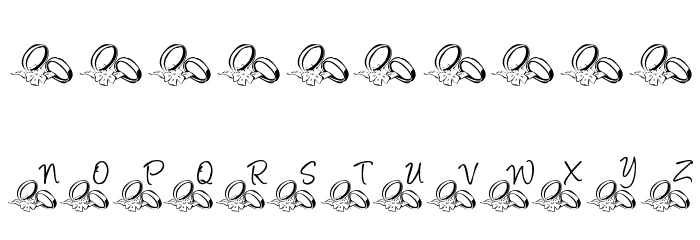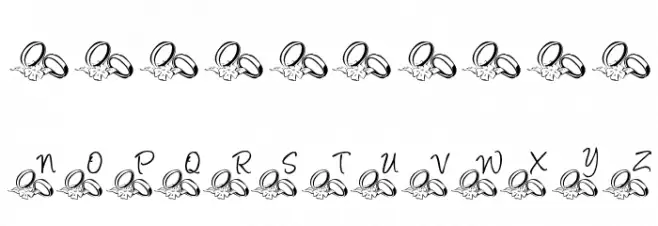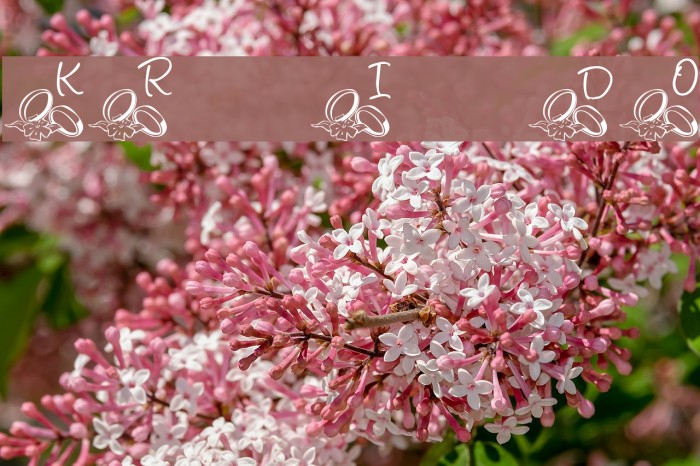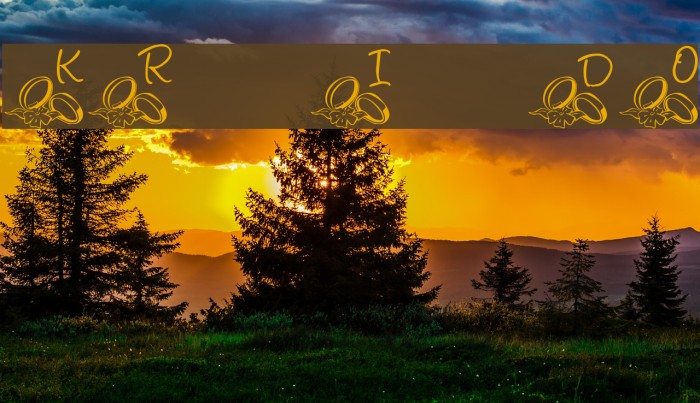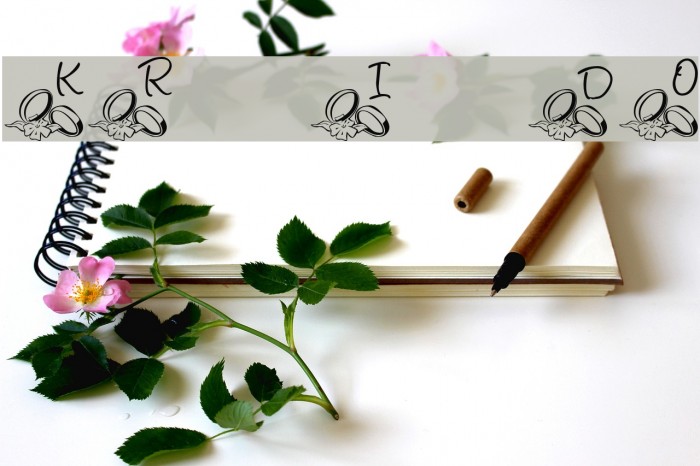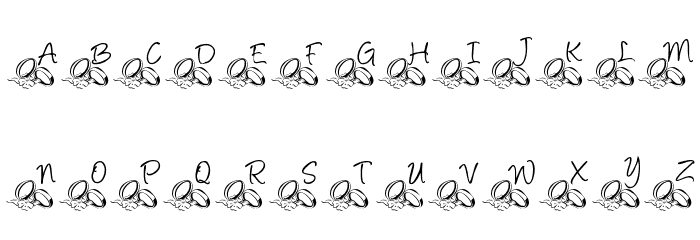
KR I Do! Font
This decorative font features a unique design where each character is embellished with an intricate illustration of wedding rings, adding a romantic and elegant touch. The uppercase and lowercase letters are crafted in a script style, with smooth, flowing lines that convey a sense of grace and sophistication. The numbers and special characters maintain the same ornamental theme, ensuring consistency throughout the font. This font is perfect for projects that require a touch of romance and elegance, such as wedding invitations, greeting cards, and other celebratory materials. The artistic integration of the rings with the letters makes it stand out as a distinctive choice for special occasions.
A decorative script font adorned with wedding rings, ideal for romantic projects.
• Proposed Projects: Wedding invitations, greeting cards, romantic event materials, personalized gifts.
• Category: Decorative/Display
• Contrast: Medium
• Overall Style: Decorative
• Use Case: Headlines, Invitations, Decorative text